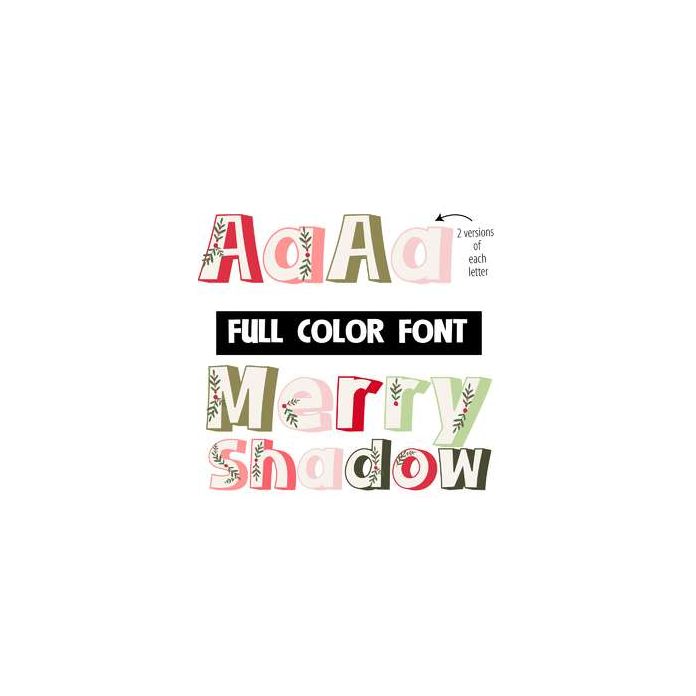
merry shadow color font
This full-color font is a 3d font with colorful shadows on white lettering. There is a full alternative color for each letter that you can access through your system's character map. This font works best for titles, displays, posters and more. Please note color fonts will show as black in non compatible programs. This font type is compatible with Silhouette Studio.